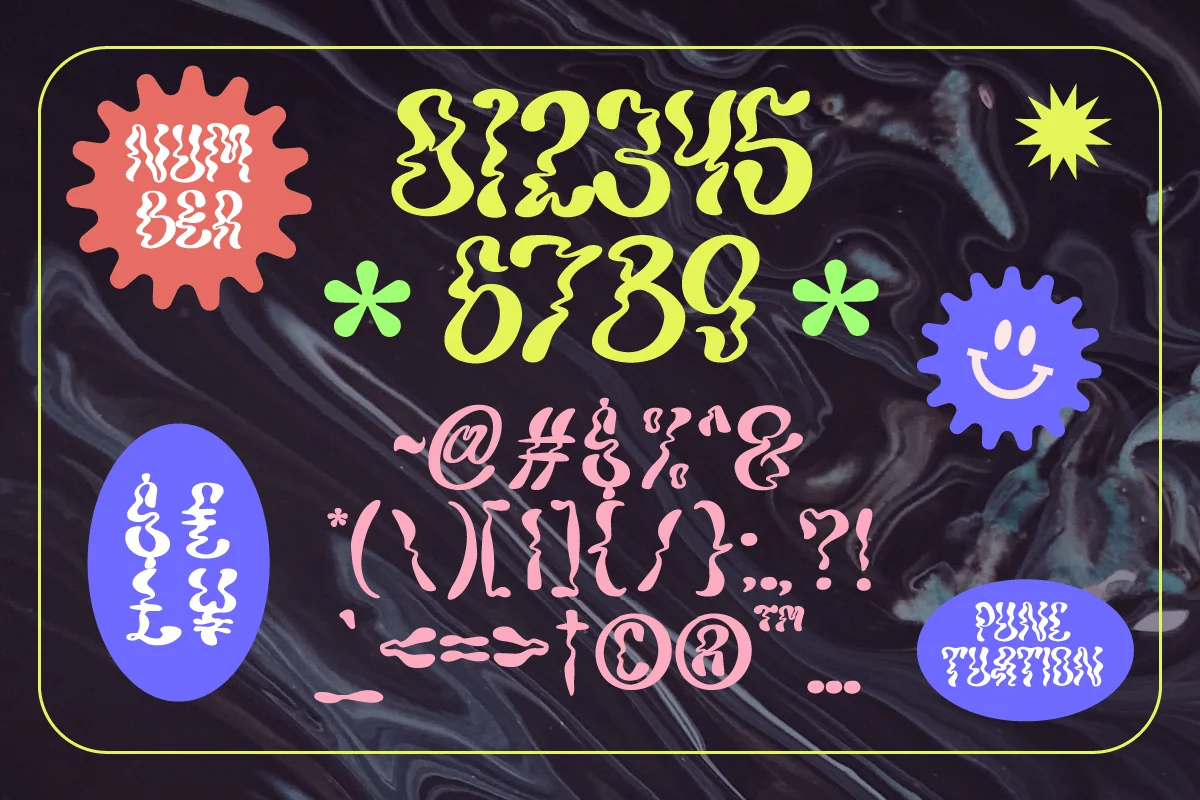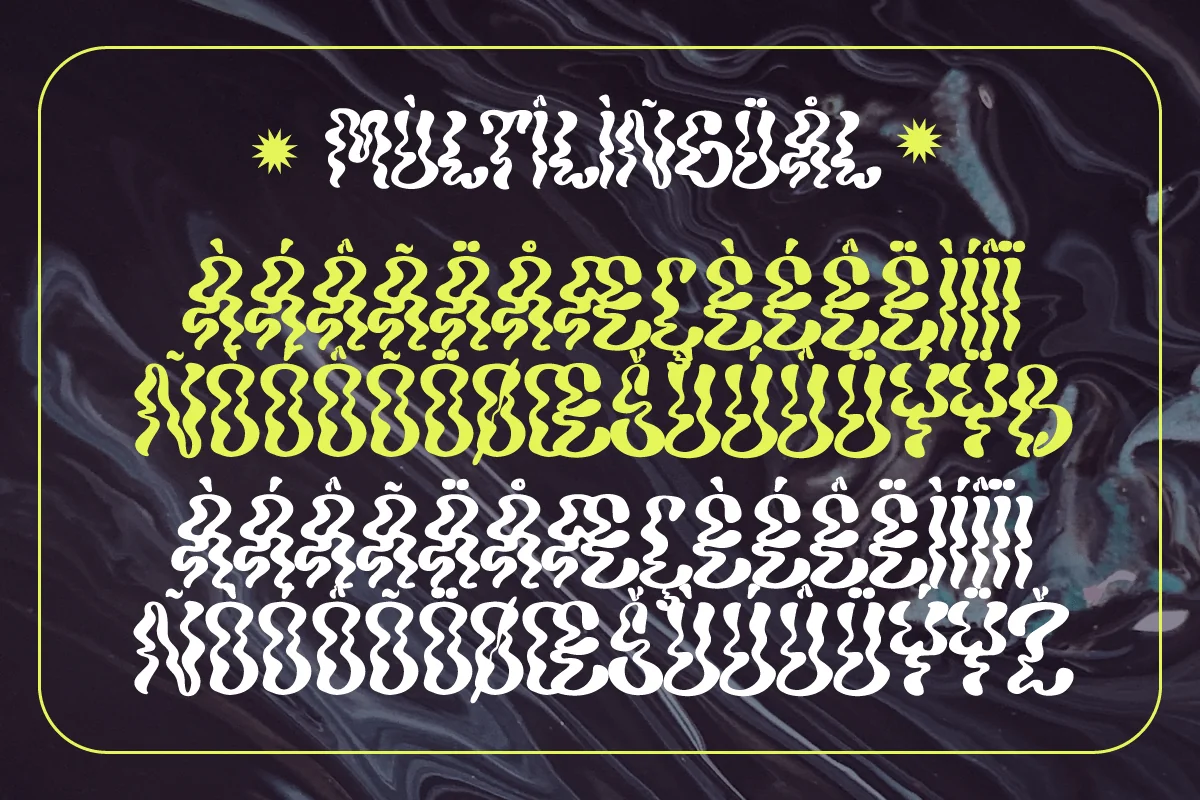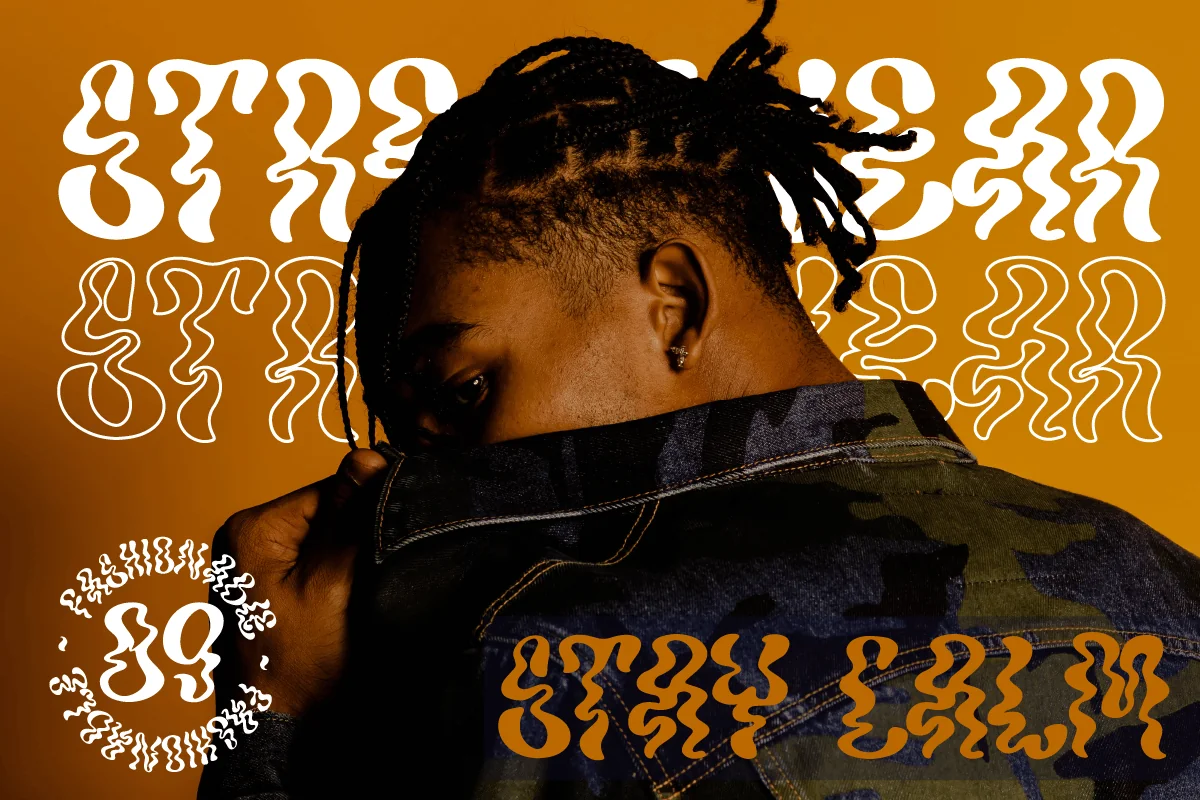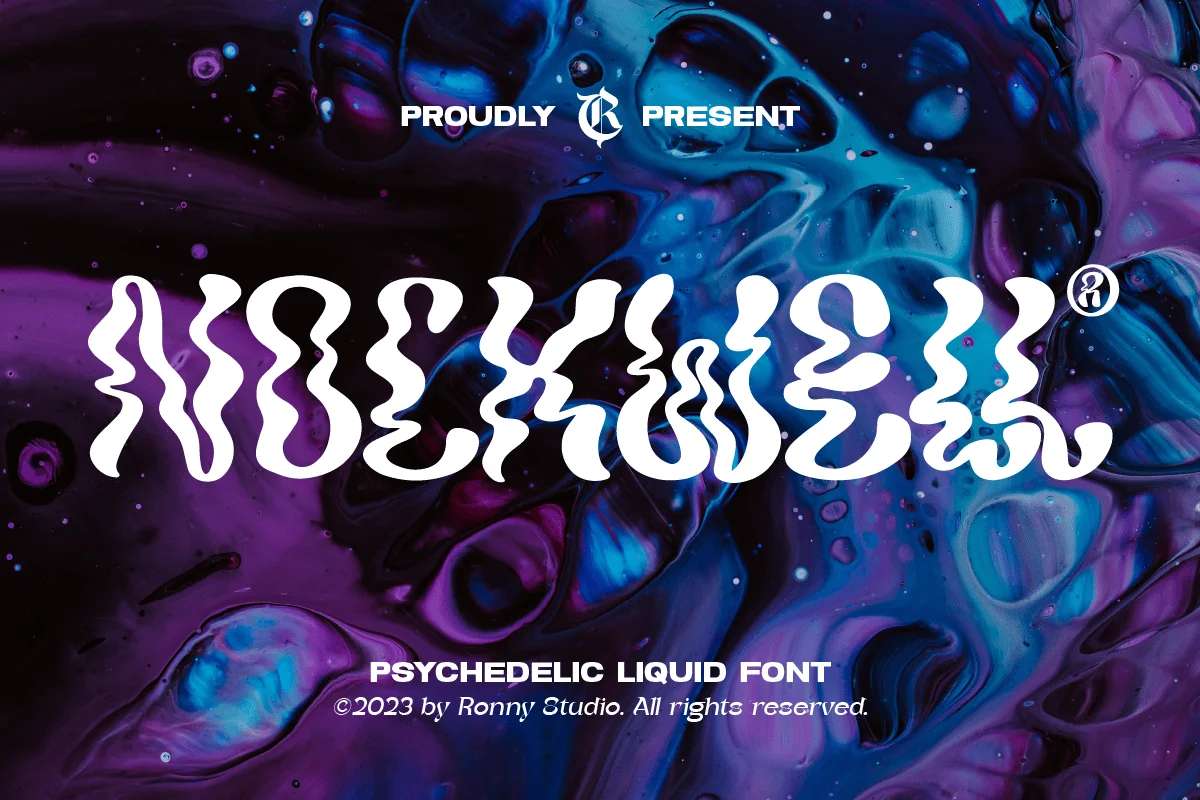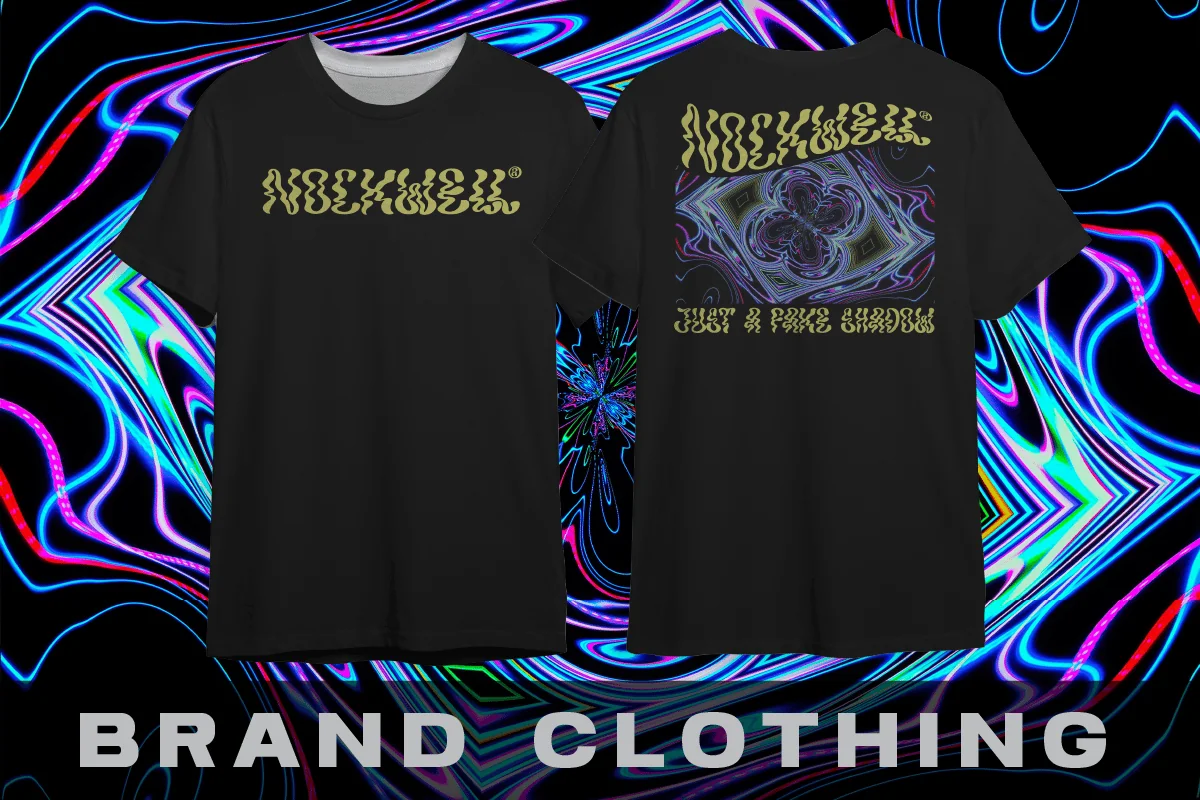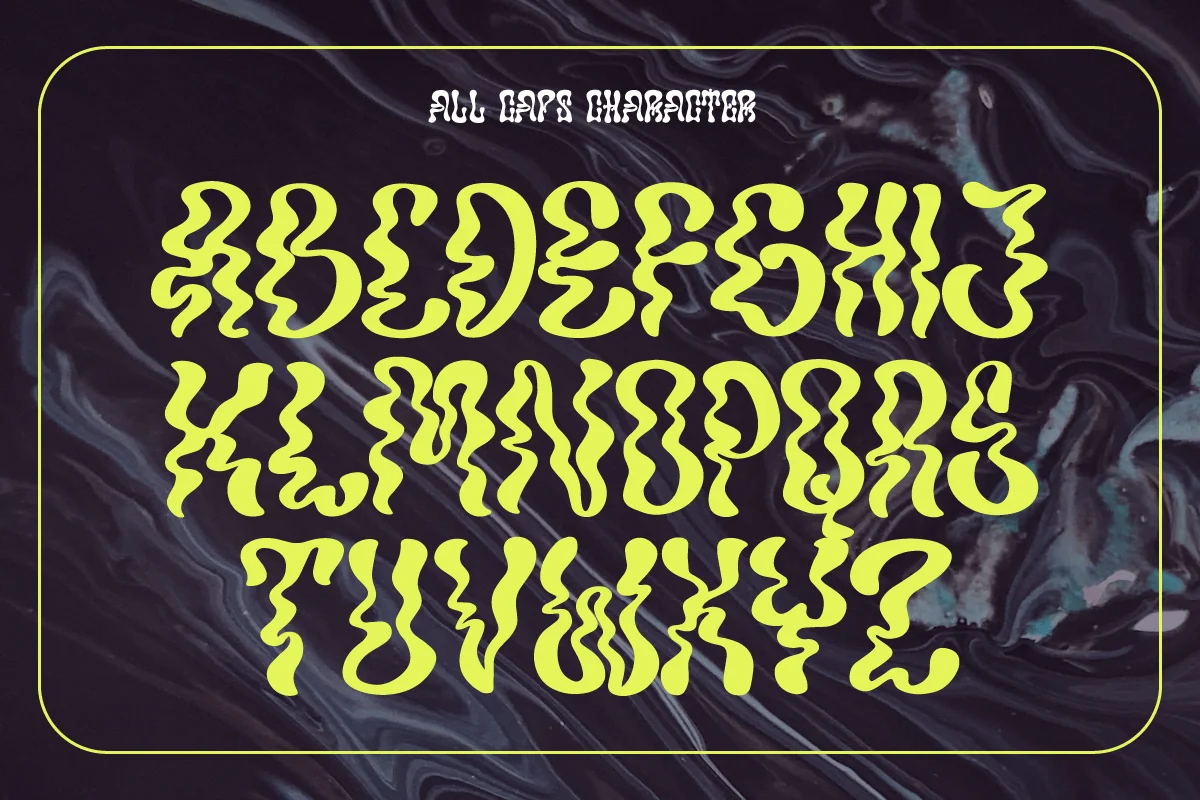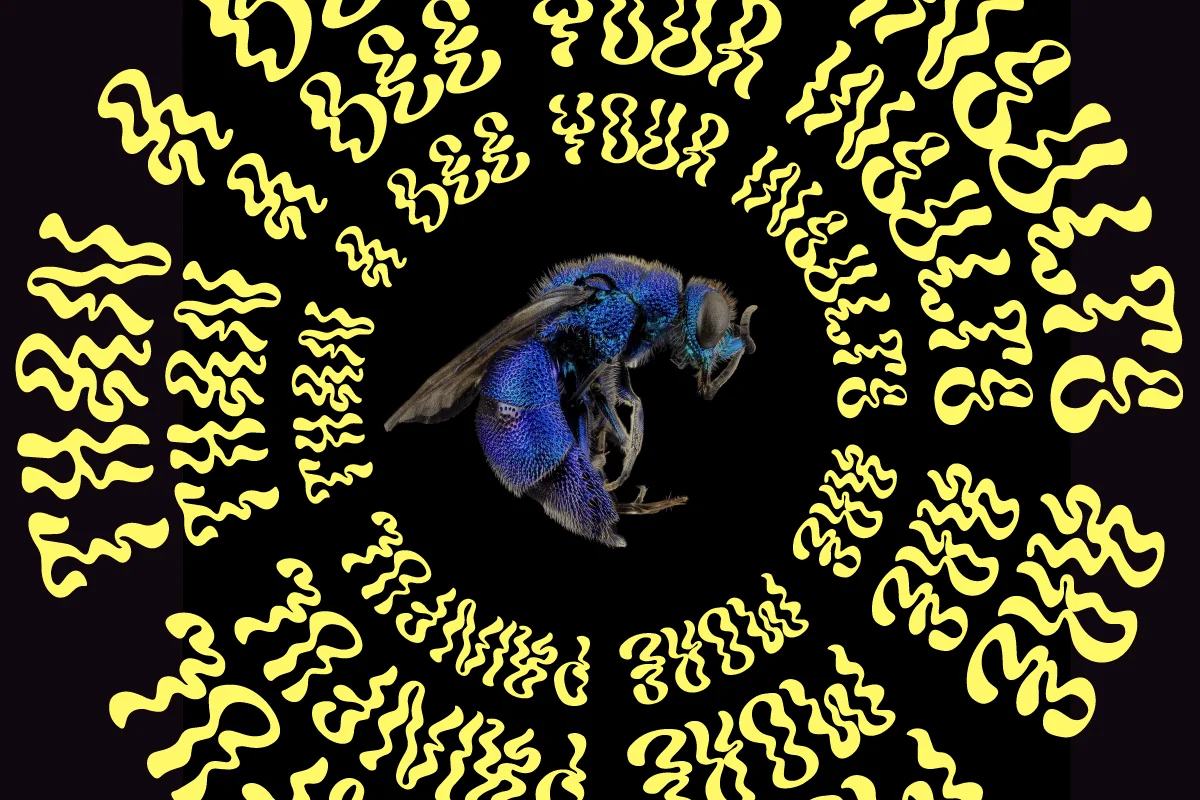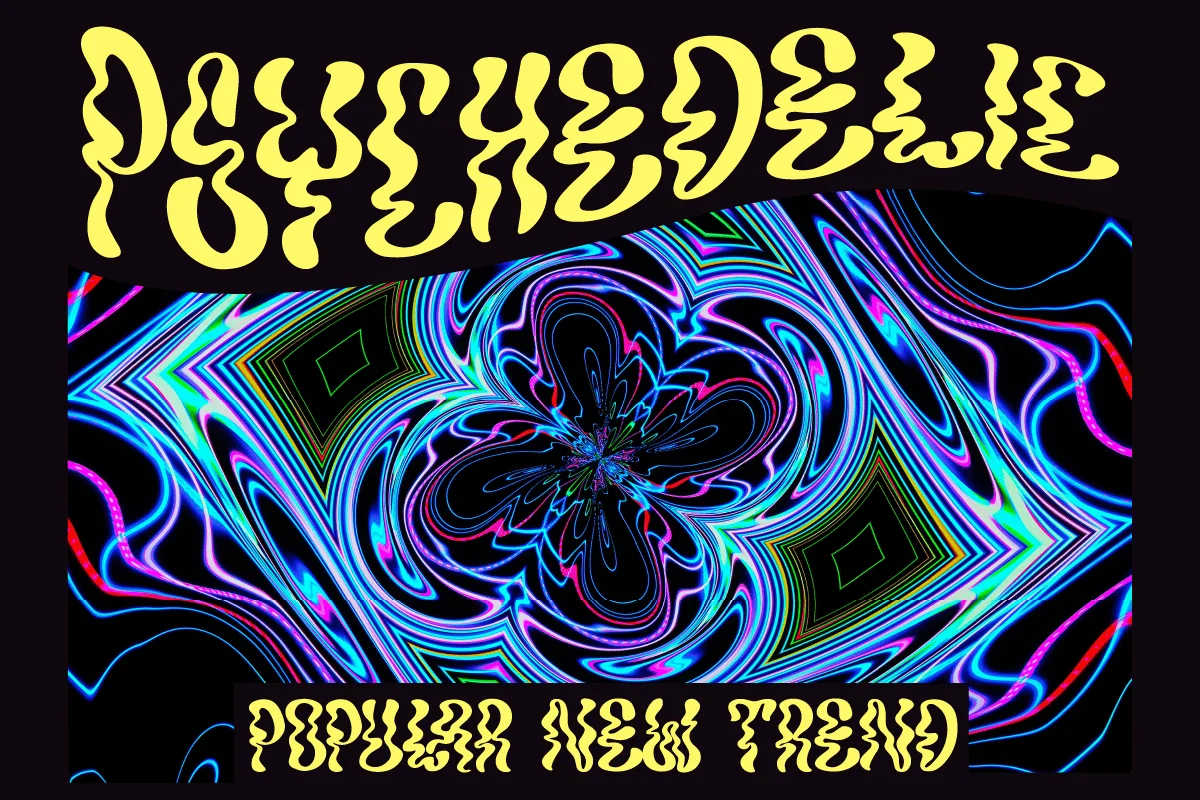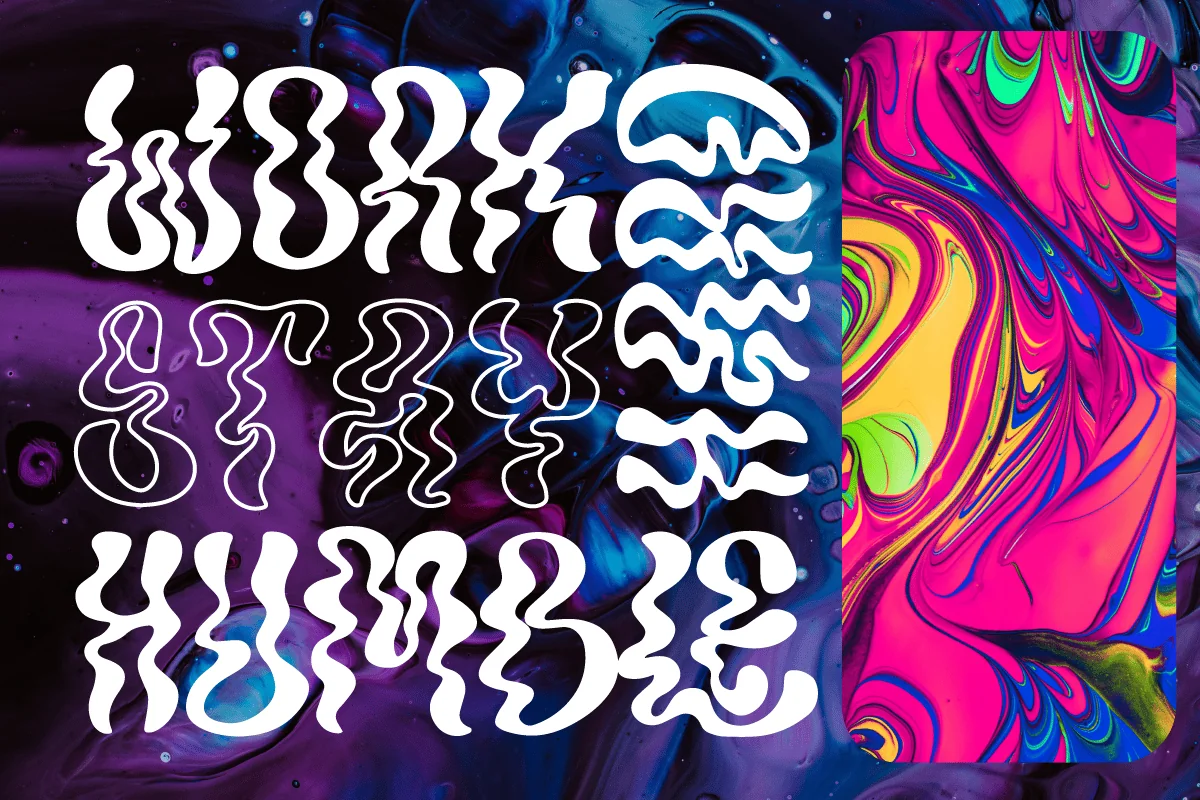
Nockwell – Psychedelic Liquid Font
Nockwell font – Psychedelic liquid decorative font, which works perfectly for bold titles, Festival posters, as a graphic element for bright T-shirt or hoodies, or even backgrounds! This weird and ugly font likes an experiment with spacing and different deformation. Please, don’t hold back on your bold modern ideas!
- Lowercase & Uppercase ( All Caps )
- numbers and punctuation
- multilingual